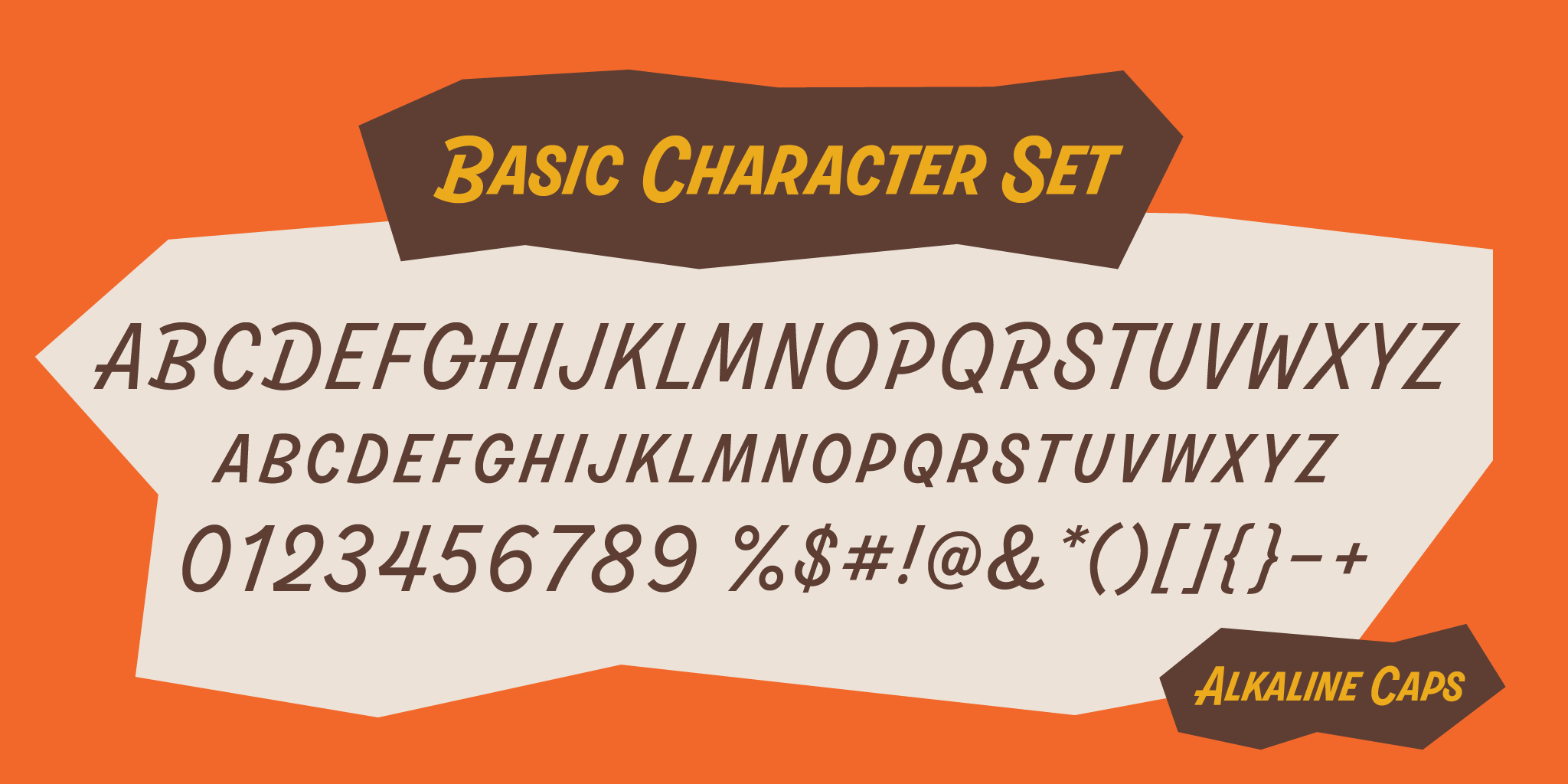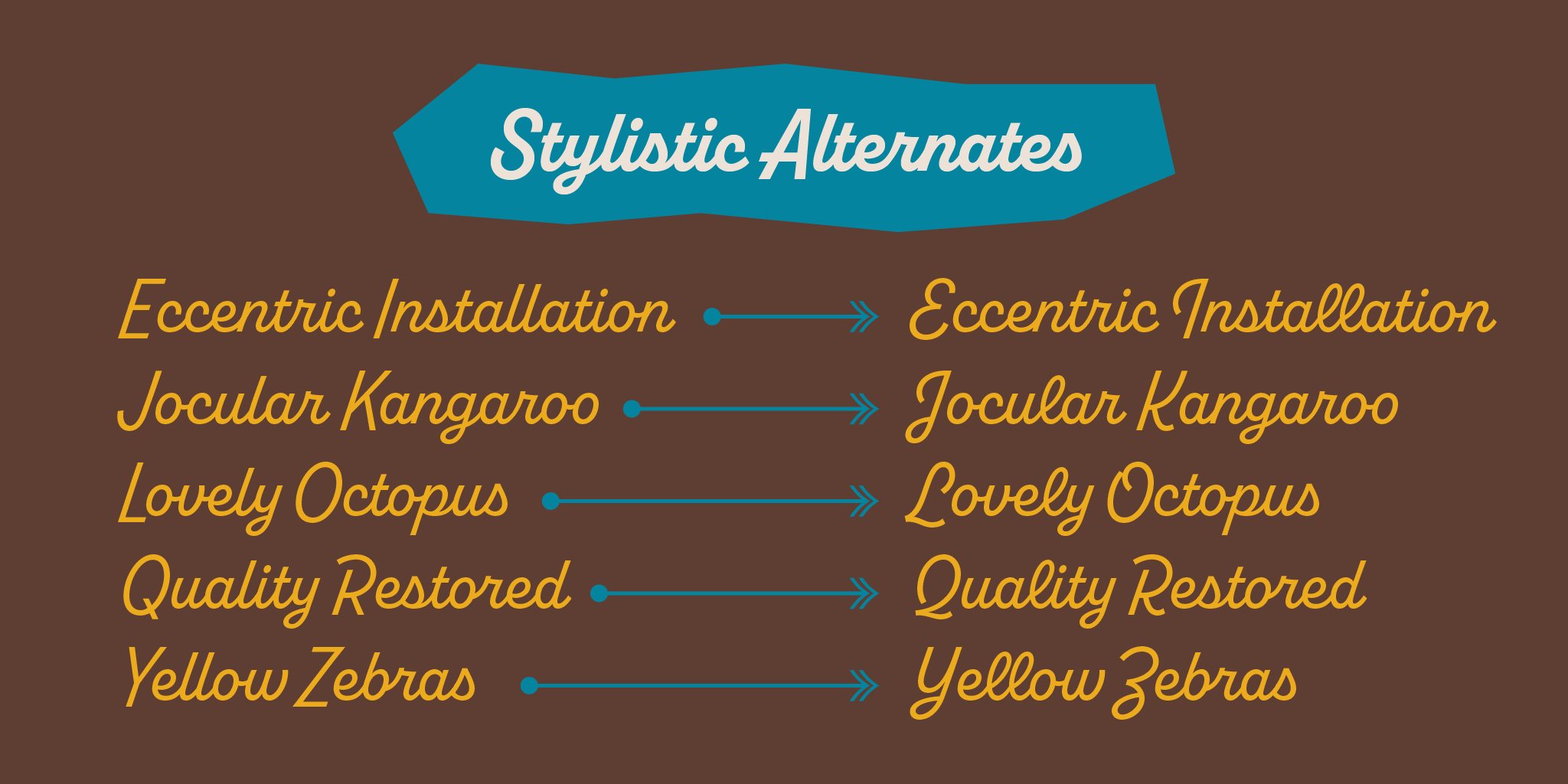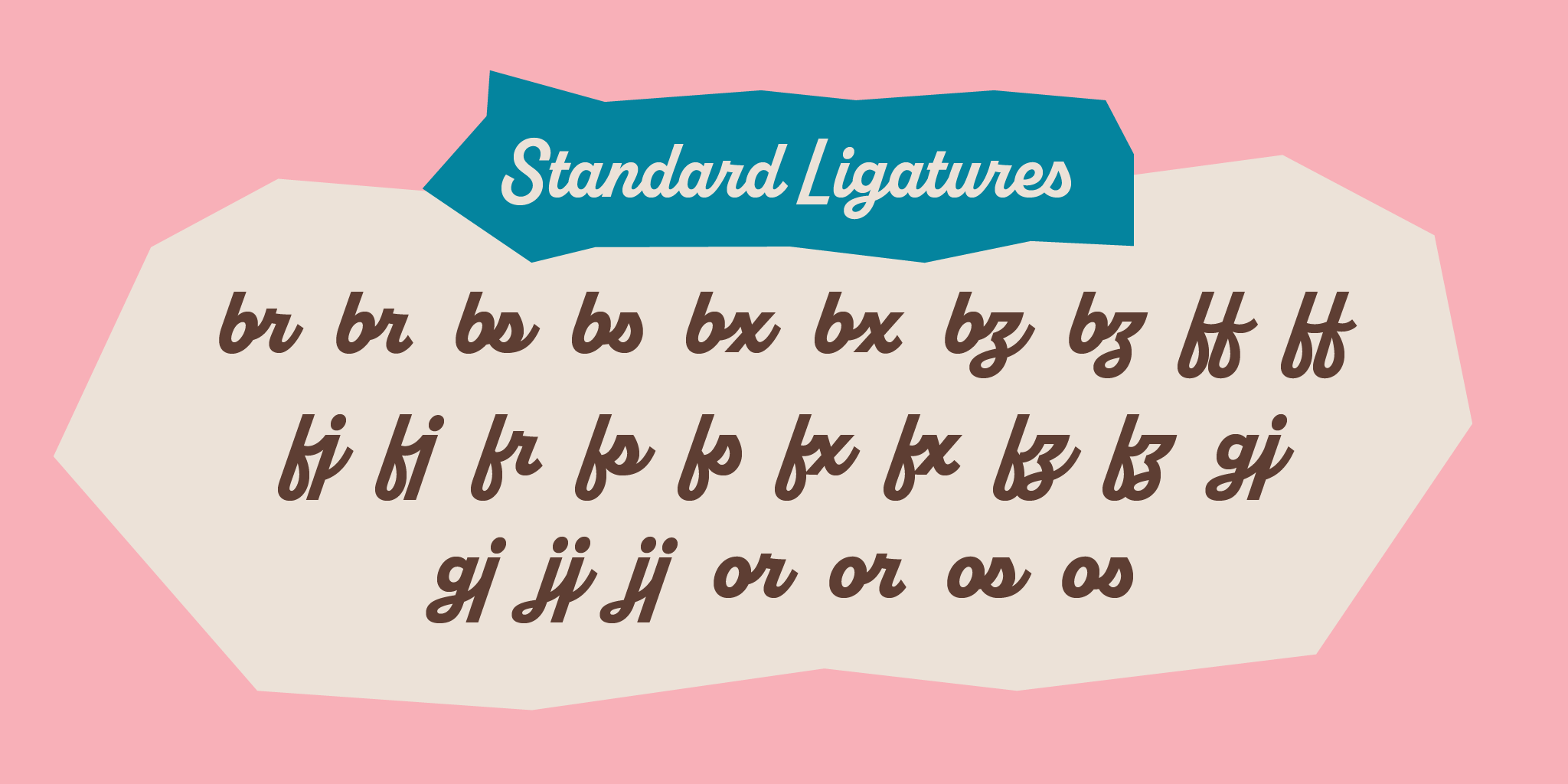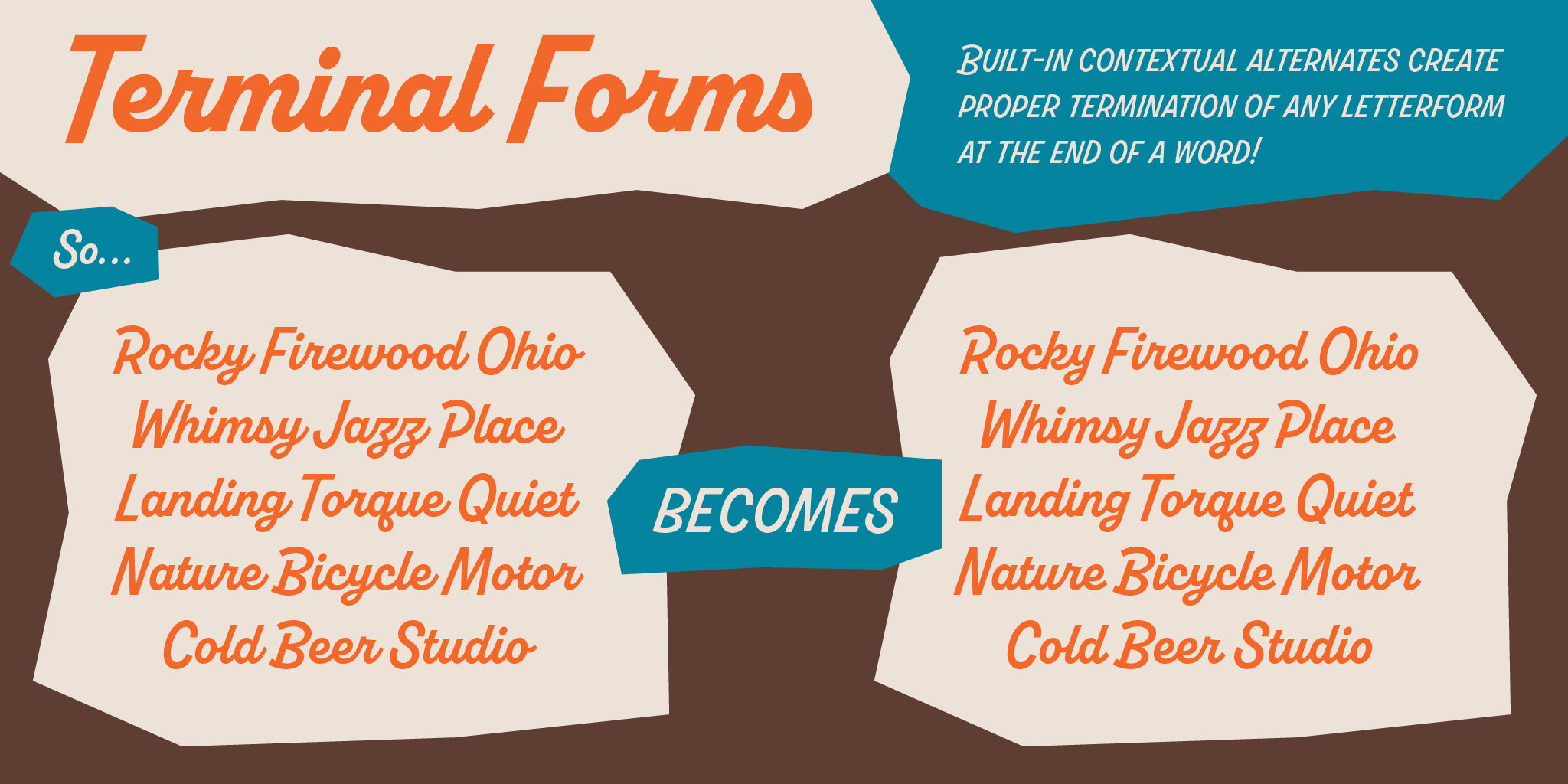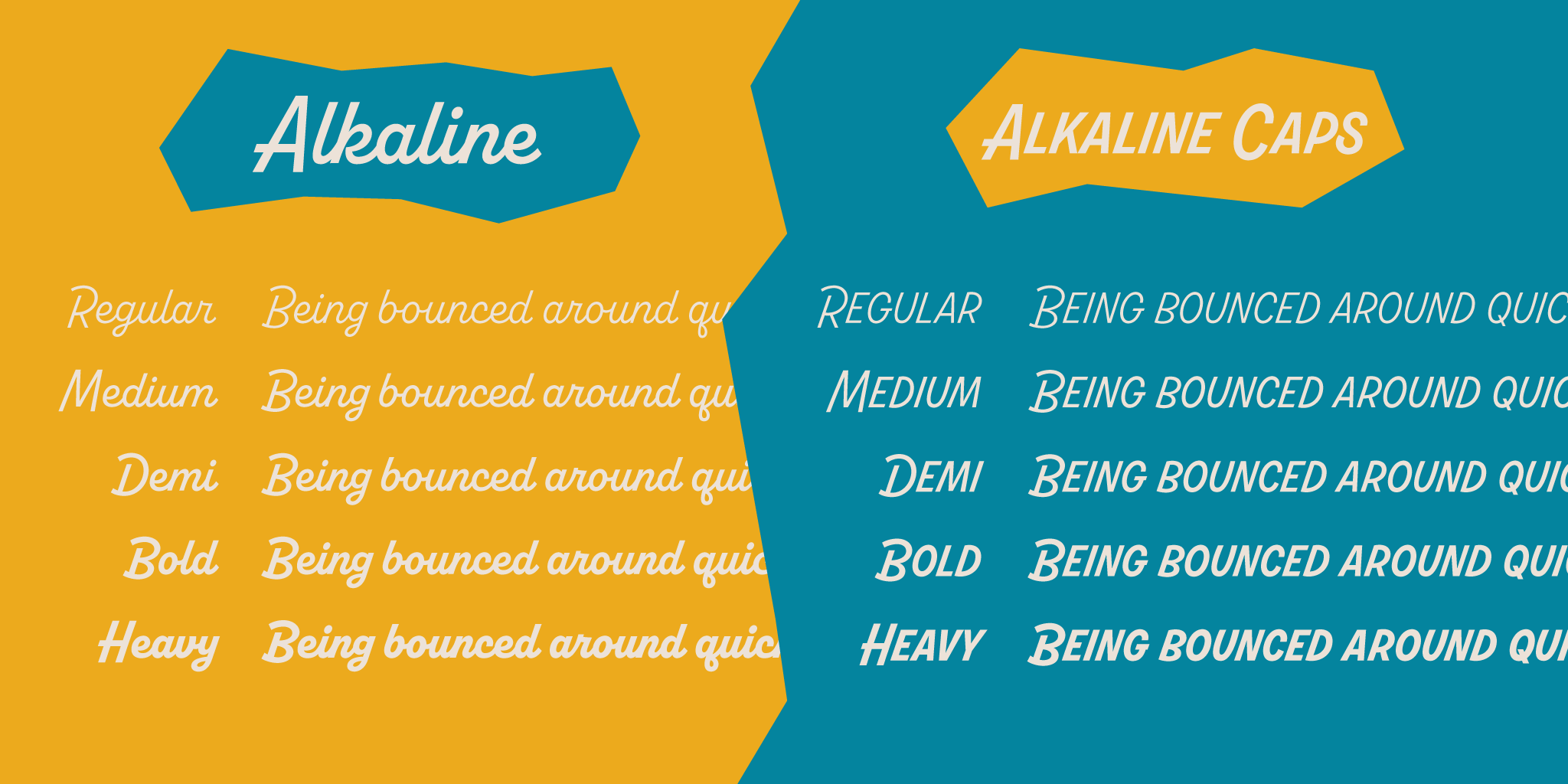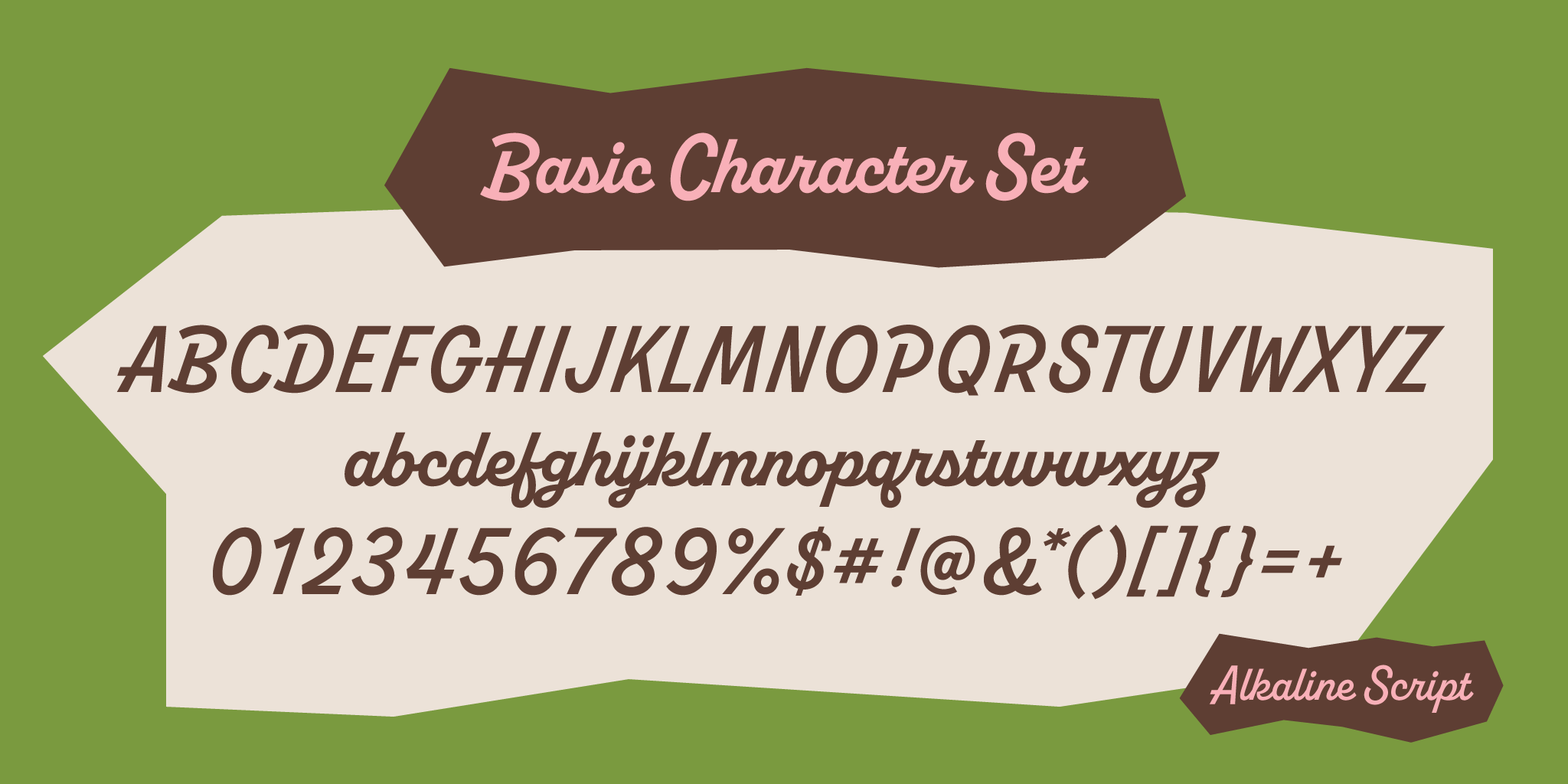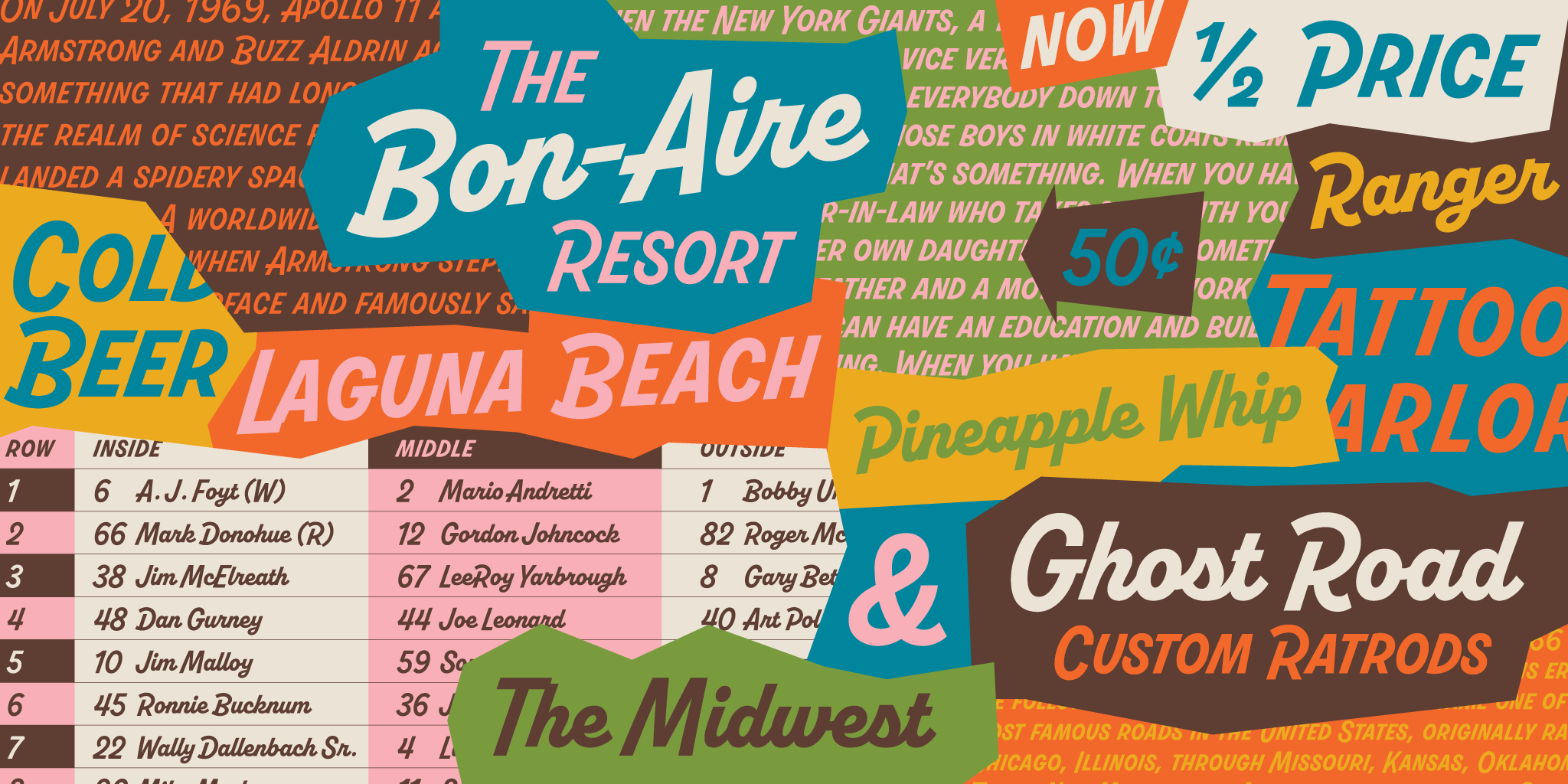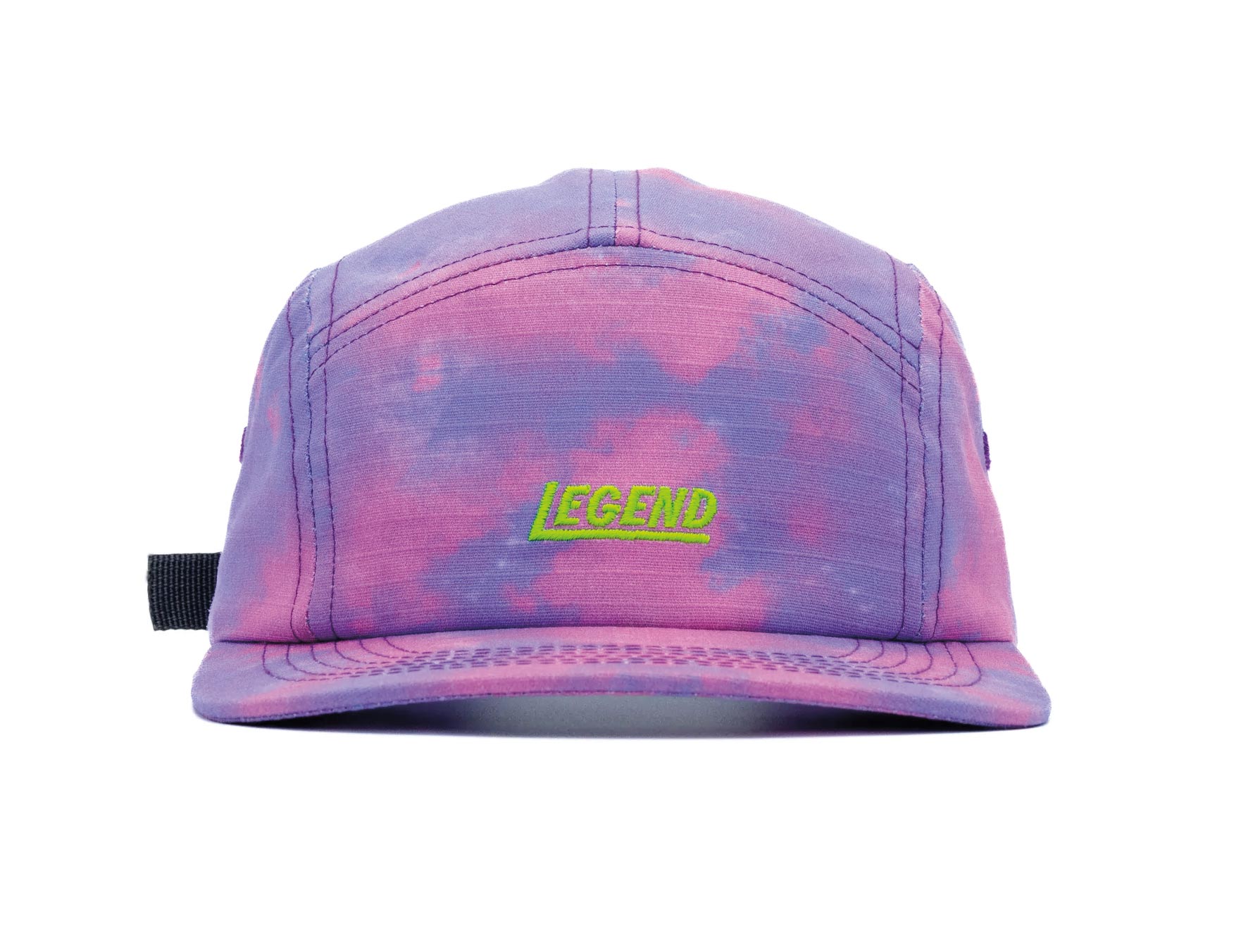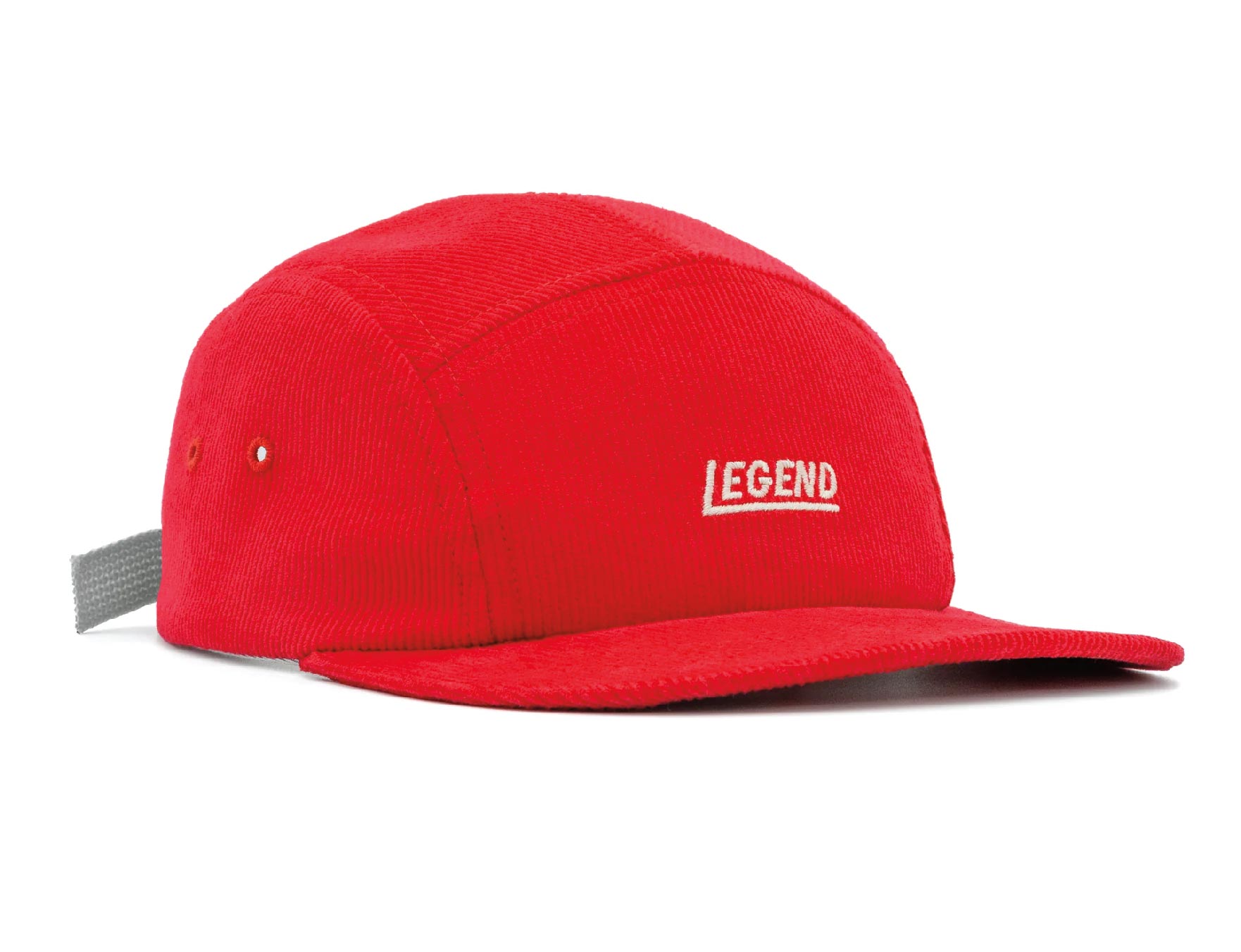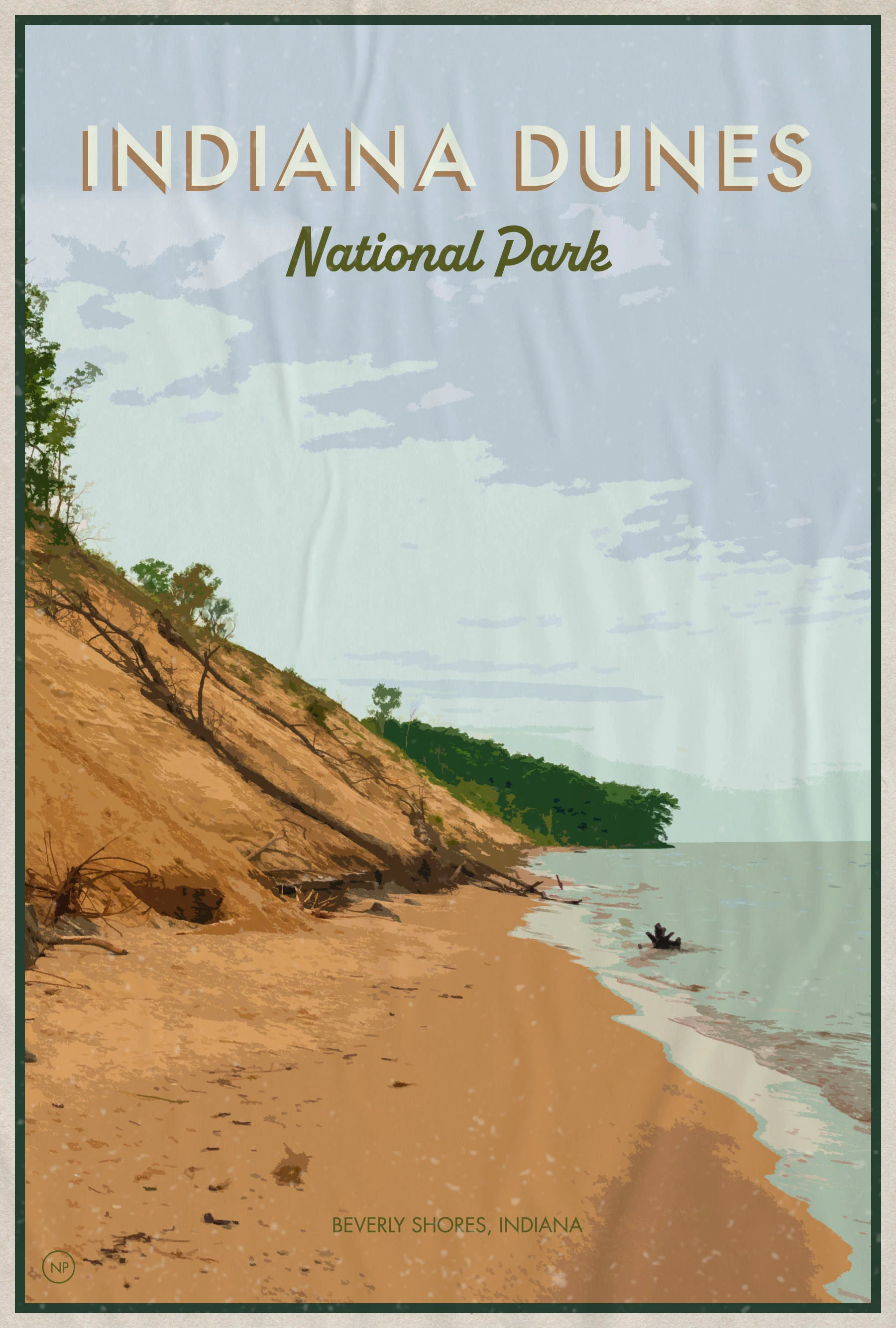
Alkaline
Script
Features
Contextual alternates
Stylistic alternates
Caps version
Small caps alternates
Fractions
Ligatures
A highly fun and functional mid-century script.
Ever since seeing his knack for lettering, Fort has been crazy about the fun and flair Jonathan Ball puts into his work. We reached out years back and began developing a script together with the goal of making it as fun, yet functional as possible. Inspired by mid-century lettering and logos on kitchen appliances, Alkaline is packed with fully functional ligatures, international language support, stylistic and contextual alternates, and even an all caps version. With a clubby camber of 18°, Alkaline is ready for all kinds of good times!